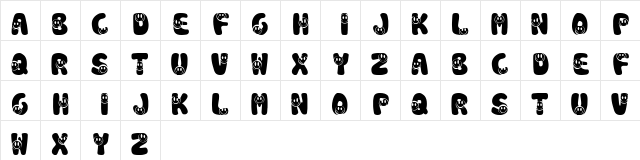
KR Smile Regular
Design Context for KR Smile Typeface
KR Smile is a composed and adaptable typeface that performs quietly and consistently across a wide range of design contexts.